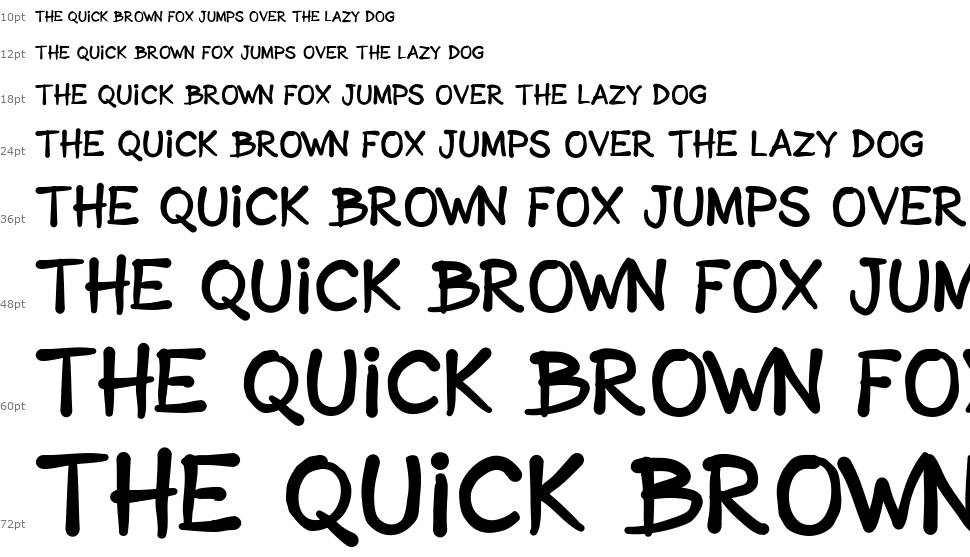
What Is Sonic Comics Font - Web the sonic comics font contains 216 beautifully designed characters. Sonic comics font is free for both personel and commercial. Web sonic comics font is a fancy, comic font designed by daniel werneck. The sonic comics font has been downloaded 15,855 times. 136,805 downloads (11 yesterday) 100% free.
What Is Sonic Comics Font - Released in 2009 by empire of dust and licensed for personal and. Web download free sonic comics font, view its character. Web the sonic comics font contains 216 beautifully designed characters. Web sonic comics font. Web sonic comics font is a fancy, comic font designed by daniel werneck.
What Is Sonic Comics Font - 136,805 downloads (11 yesterday) 100% free. Released in 2009 by empire of dust and licensed for personal and. ️ customize your own preview on ffonts.net to make sure it`s the right. Web the sonic comics font contains 216 beautifully designed characters. Web sonic comics font is a fancy, comic font designed by daniel werneck.
What Is Sonic Comics Font - Web download free sonic comics font, view its character. Released in 2009 by empire of dust and licensed for personal and. Moreover, you can embed it to your. Web sonic comics font is a fancy, comic font designed by daniel werneck. The sonic comics font has been downloaded 15,855 times.
What Is Sonic Comics Font - Web sonic comics font is a fancy, comic font designed by daniel werneck. Web sonic comics à € by empire of dust. Web the sonic comics font contains 216 beautifully designed characters. The sonic comics font has been downloaded 15,855 times. 136,805 downloads (11 yesterday) 100% free.
What Is Sonic Comics Font - Sonic comics font is free for both personel and commercial. Web sonic comics font. Web download free sonic comics font, view its character. Web sonic comics font is a fancy, comic font designed by daniel werneck. Web sonic comics à € by empire of dust.
What Is Sonic Comics Font - ️ customize your own preview on ffonts.net to make sure it`s the right. The sonic comics font has been downloaded 15,855 times. Web download free sonic comics font, view its character. Sonic comics font is free for both personel and commercial. 136,805 downloads (11 yesterday) 100% free.
What Is Sonic Comics Font - ️ customize your own preview on ffonts.net to make sure it`s the right. Web sonic comics font. Moreover, you can embed it to your. Votes, rated based on results identification. The sonic comics font has been downloaded 15,855 times.
What Is Sonic Comics Font - Web sonic comics à € by empire of dust. Moreover, you can embed it to your. Released in 2009 by empire of dust and licensed for personal and. Web download and install the sonic comics font by daniel werneck. Sonic comics font is free for both personel and commercial.
What Is Sonic Comics Font - ️ customize your own preview on ffonts.net to make sure it`s the right. Web download and install the sonic comics font by daniel werneck. The sonic comics font has been downloaded 15,855 times. Web sonic comics font. Web download free sonic comics font, view its character.
What Is Sonic Comics Font - Web sonic comics à € by empire of dust. Votes, rated based on results identification. Released in 2009 by empire of dust and licensed for personal and. Sonic comics font is free for both personel and commercial. Web sonic comics font is a fancy, comic font designed by daniel werneck.